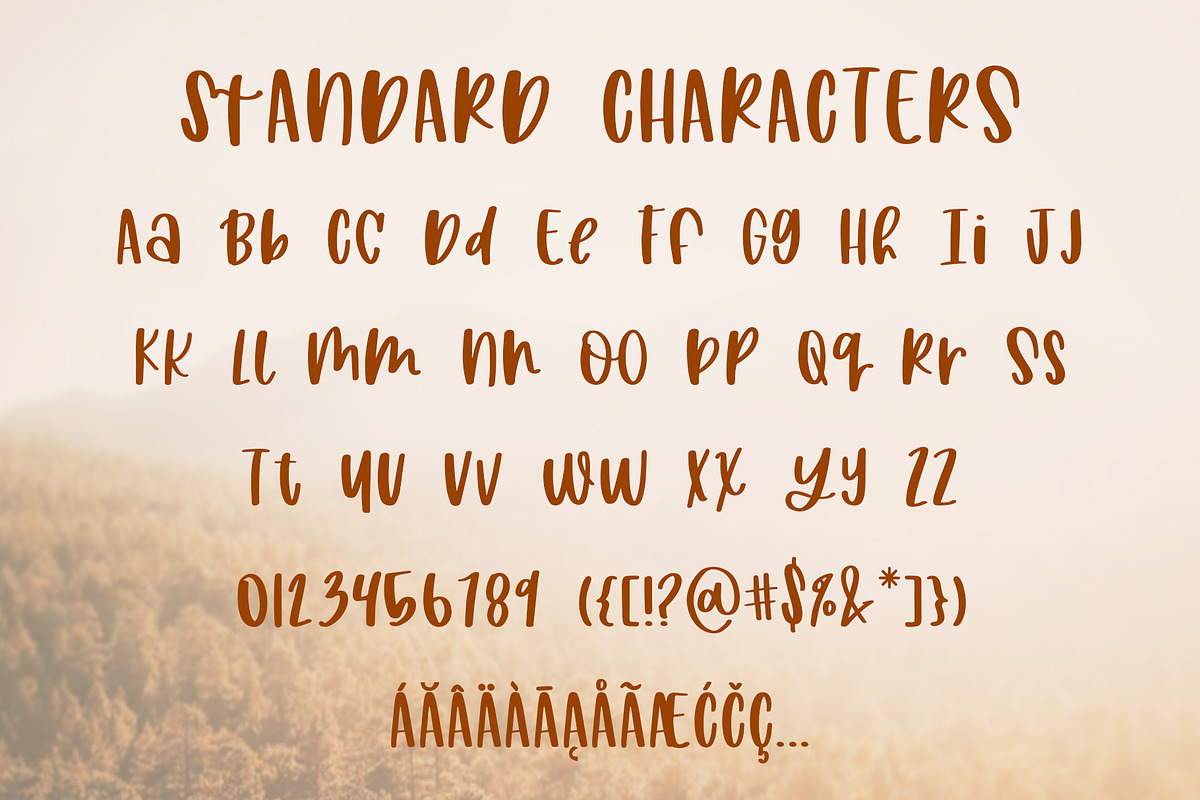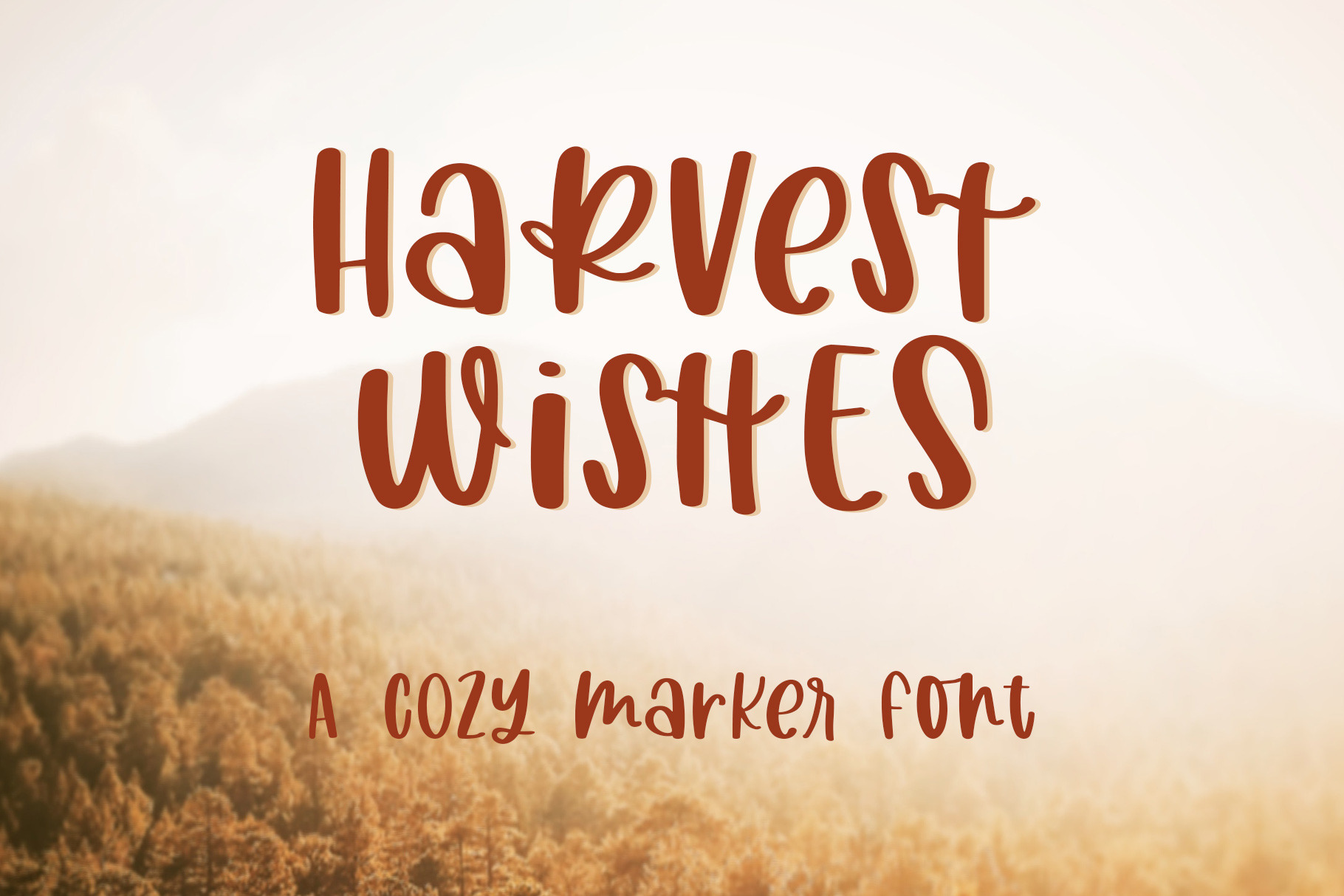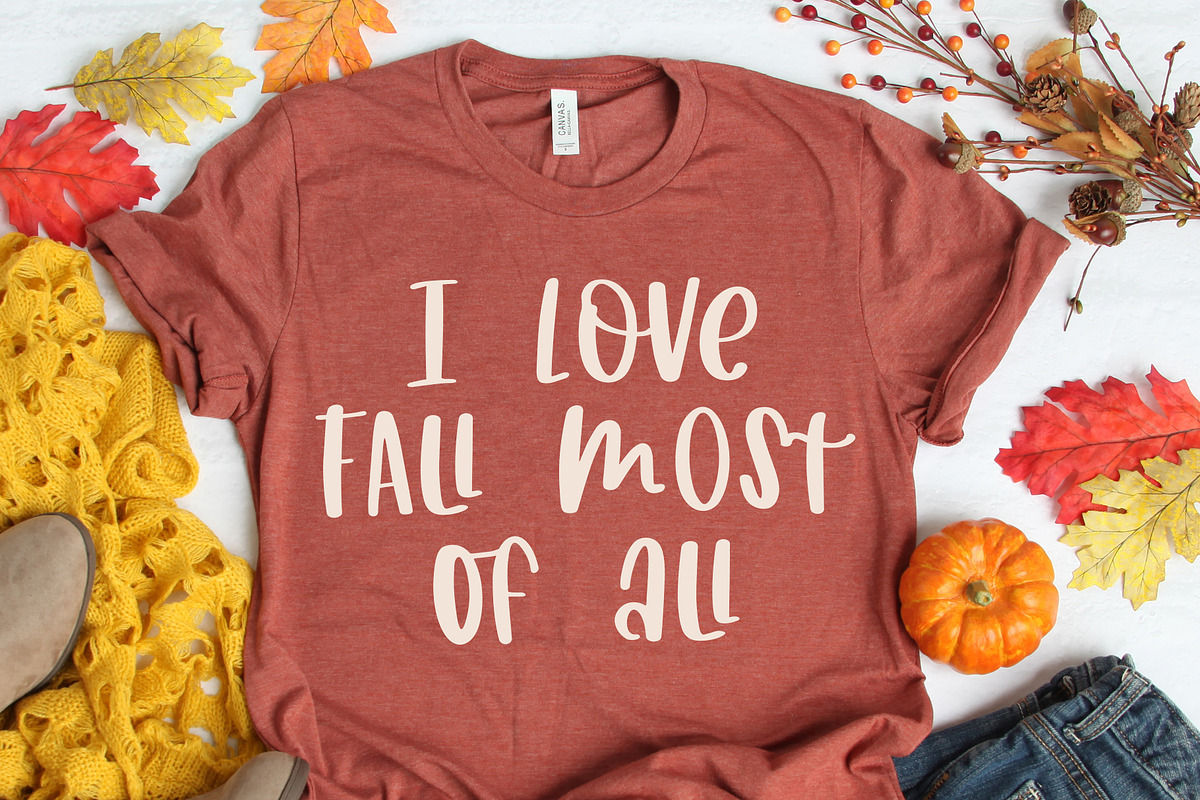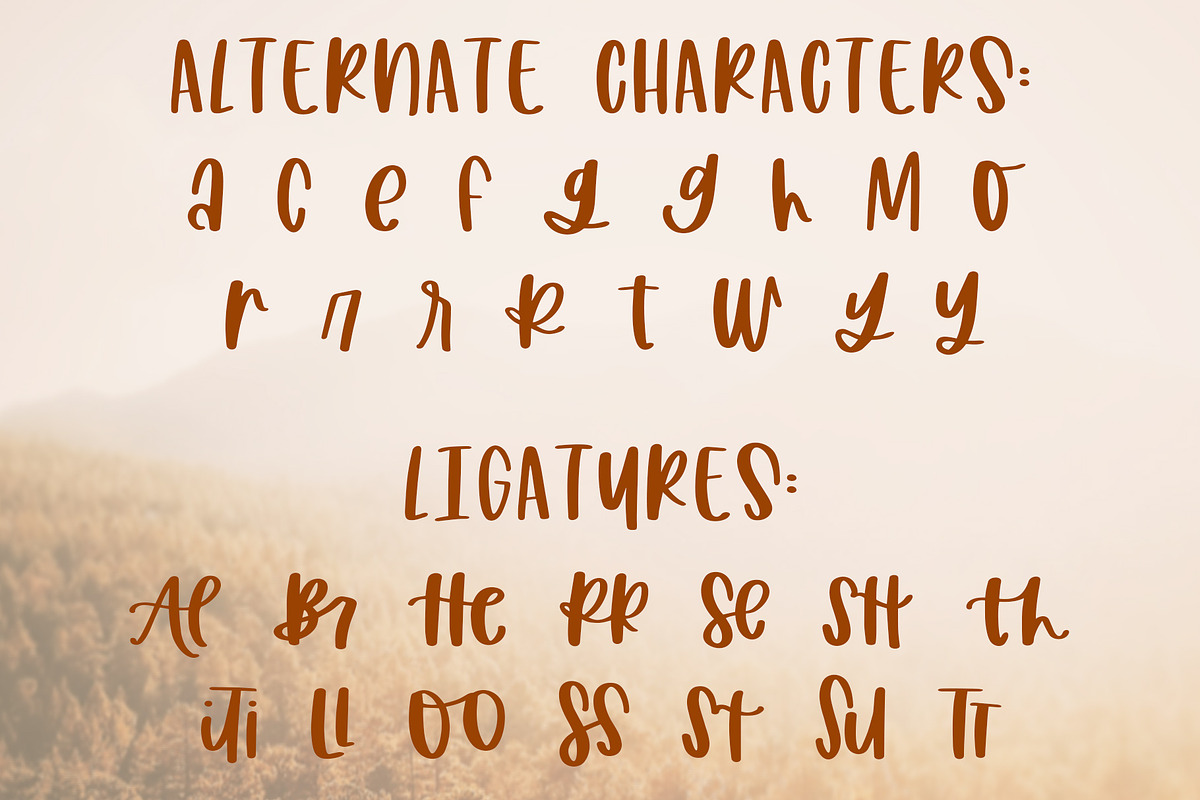
Harvest Wishes Cozy Marker Font
Introducing Harvest Wishes, a cozy marker font!
- Full set of uppercase characters, lowercase characters
- Some punctuation and numbers 0-9
- 14 Ligatures
- 18 Alternate Characters
- 127 Multilingual Support Characters
A total of 321 glyphs are included in Harvest Wishes.